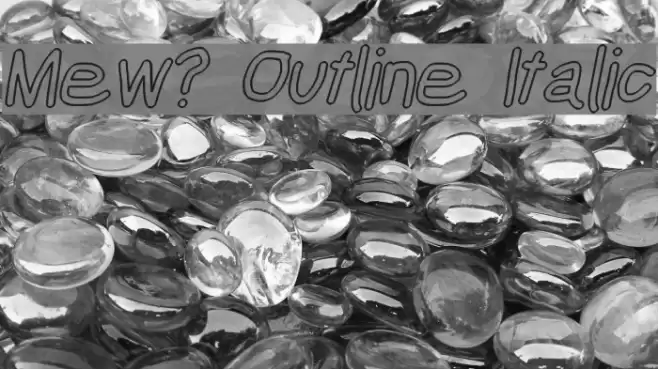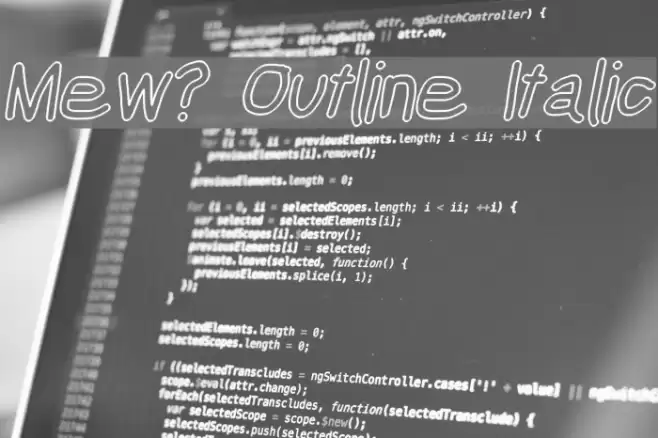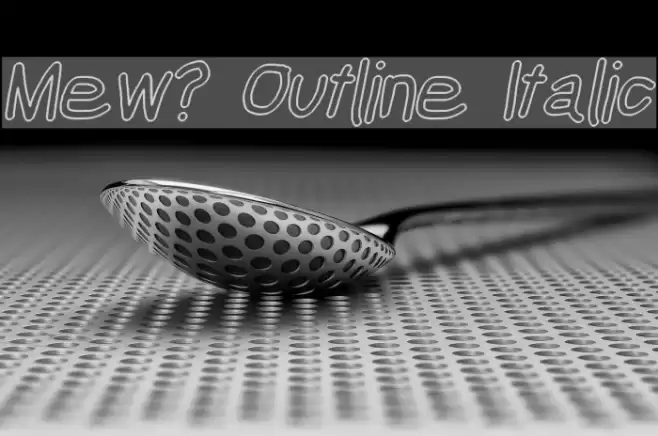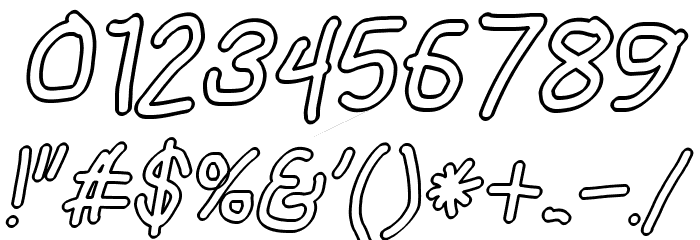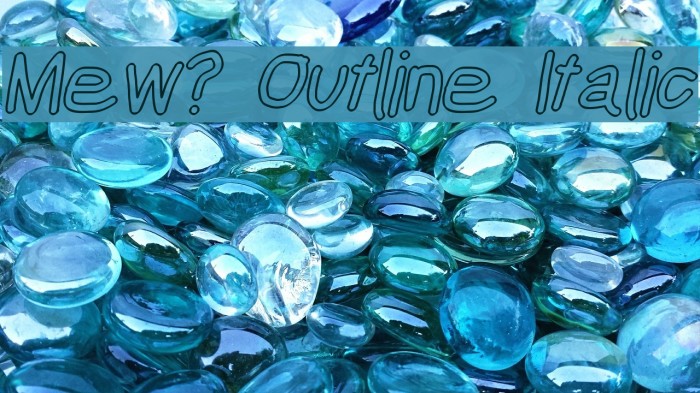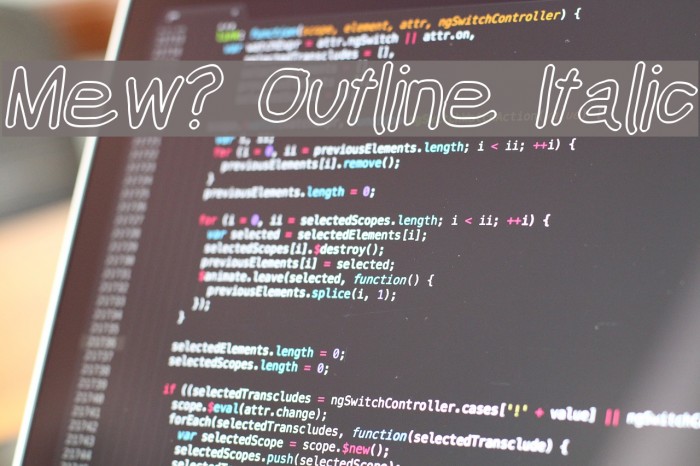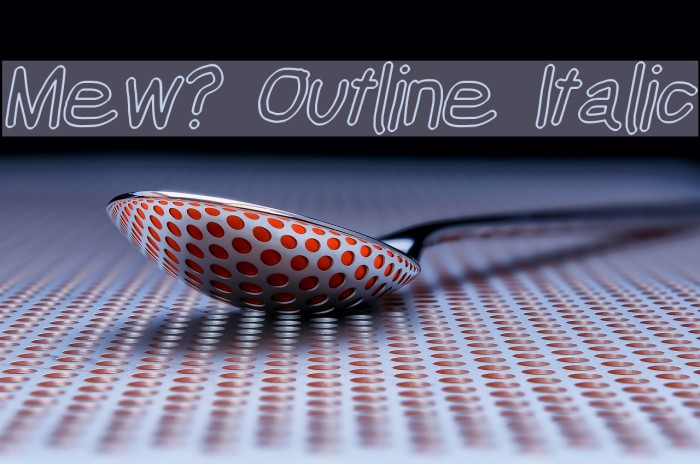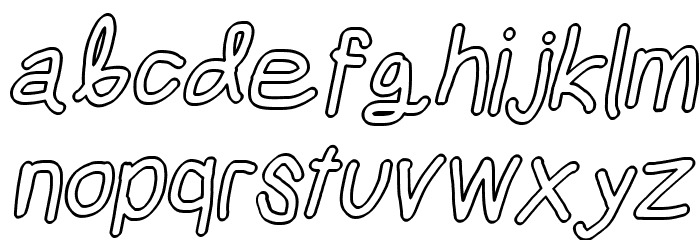
Mew? Outline Italic Font
Mew? Outline Italic Description
This font features a playful and dynamic outline style, characterized by its italicized form which adds a sense of motion and fluidity. The uppercase and lowercase letters maintain a consistent stroke width, creating a harmonious and balanced appearance. The numerals and special characters follow the same outlined and italicized design, ensuring uniformity across all glyphs. Its unique style makes it stand out, offering a modern twist on traditional letterforms. The font's outline nature gives it a light and airy feel, making it suitable for designs that require a touch of creativity and fun.
A playful, italicized outline font with a modern and dynamic style from Uncategorized fonts.
- Proposed Projects: Ideal for creative projects such as posters, children's books, playful branding, and eye-catching headlines.